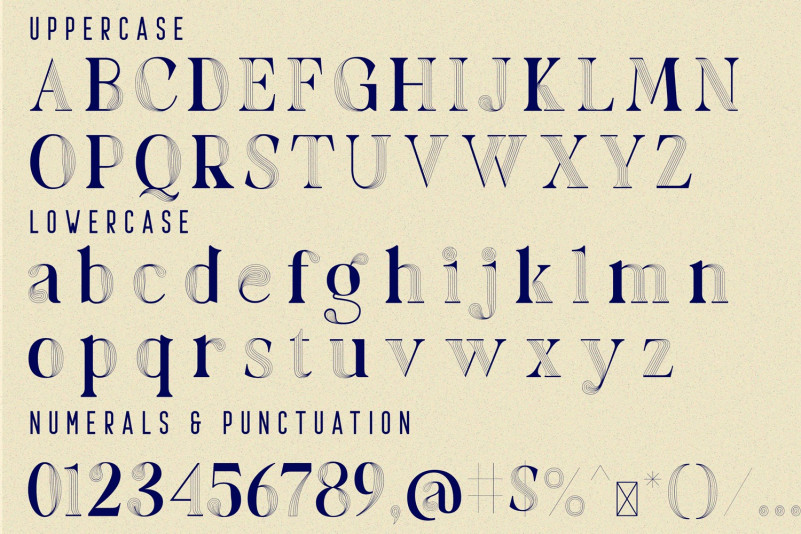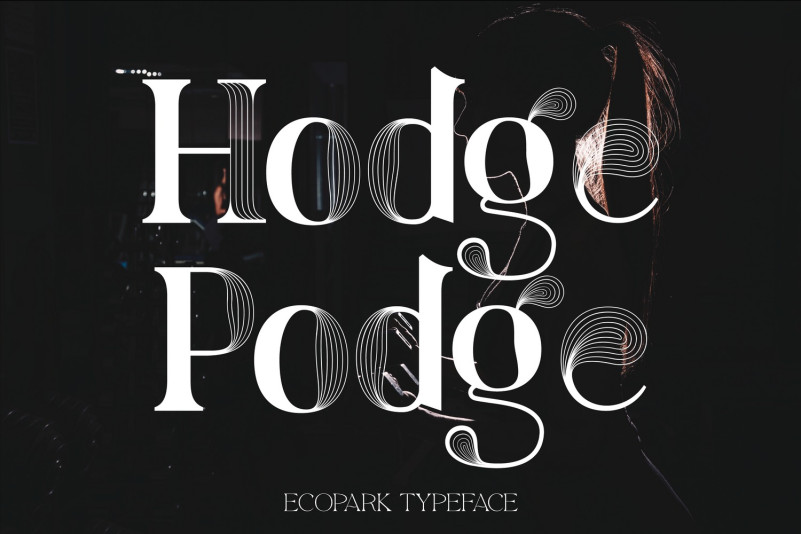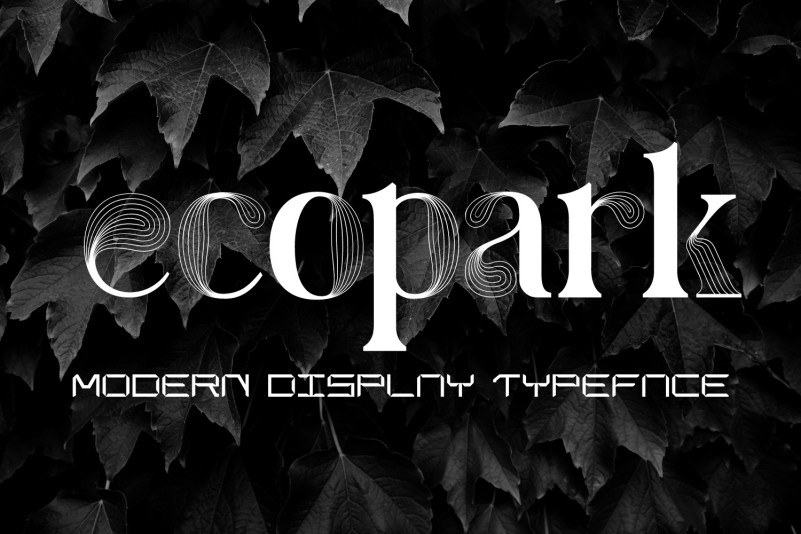
Ecopark Font
Ecopark font- modern linear Serif font, it’s a font inspired by art deco style. It’s a minimalistic handwritten thin font inspired by tribal aesthetics and decorated with geometric patterns. It’s suitable for greeting cards, branding materials, business cards, social media, packaging, prints, quotes, posters etc.